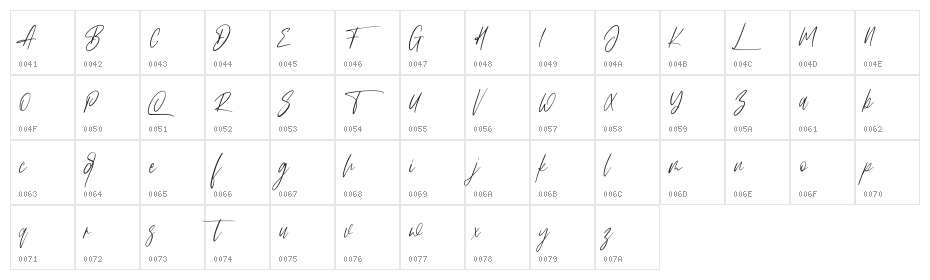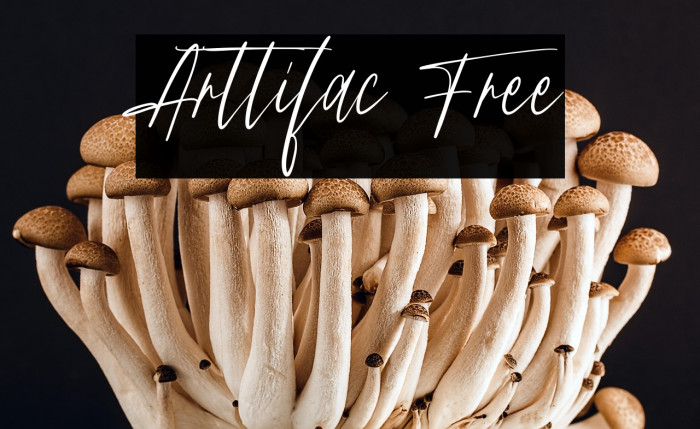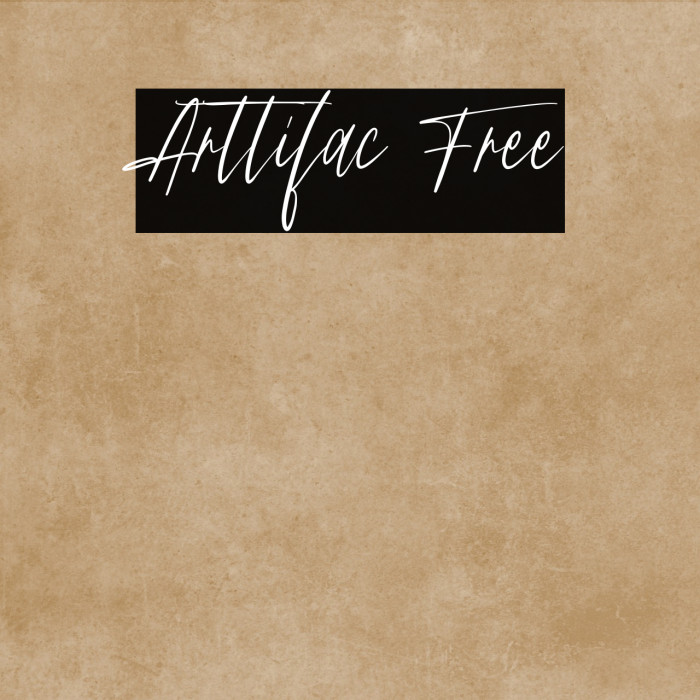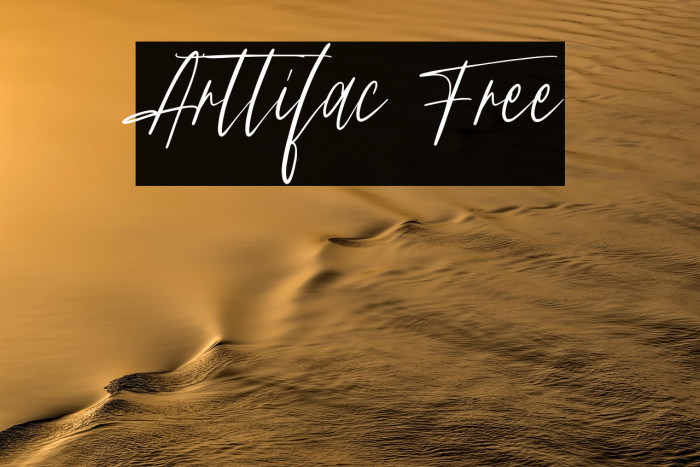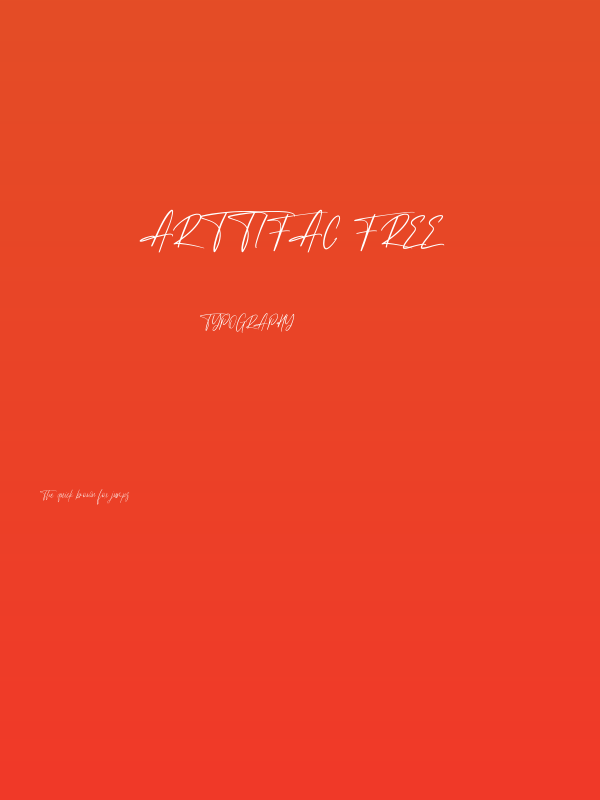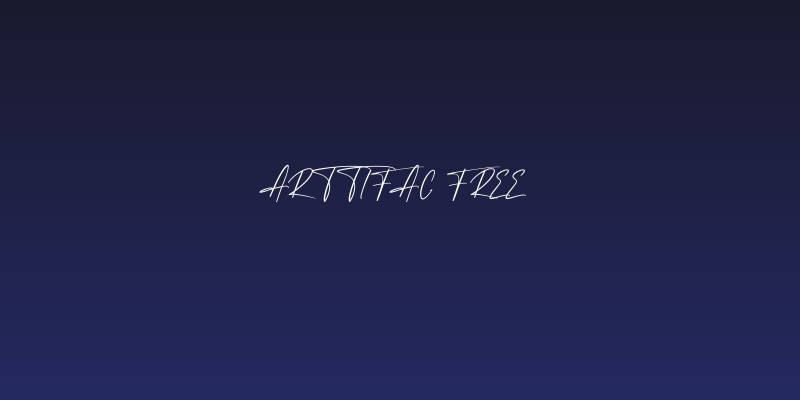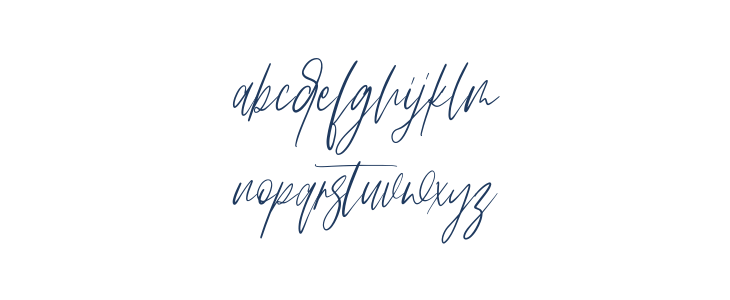
Arttifac Free Font
Arttifac Free Description
This font exhibits a dynamic and fluid handwritten style, characterized by its elegant and flowing script. The letters are interconnected with sweeping curves and loops, giving it a sense of movement and grace. The strokes vary in thickness, creating a natural and organic appearance that mimics authentic handwriting. This font is both expressive and stylish, making it suitable for creative and artistic projects. The uppercase and lowercase letters maintain a consistent style, while the numerals and special characters integrate seamlessly into the overall design.
| Proposed Projects | Ideal for wedding invitations, personal branding, greeting cards, and artistic posters. |